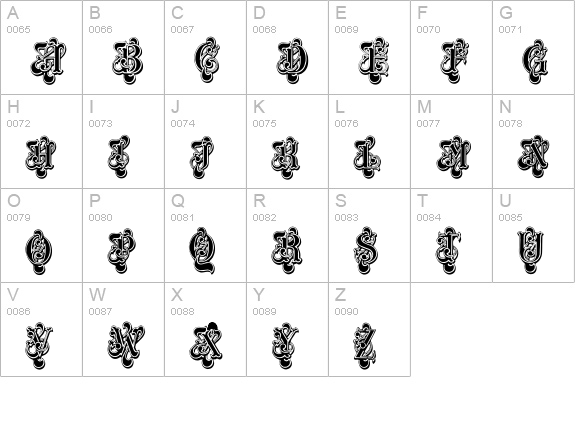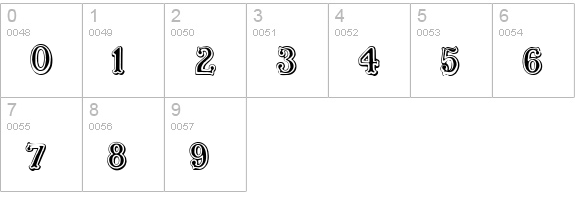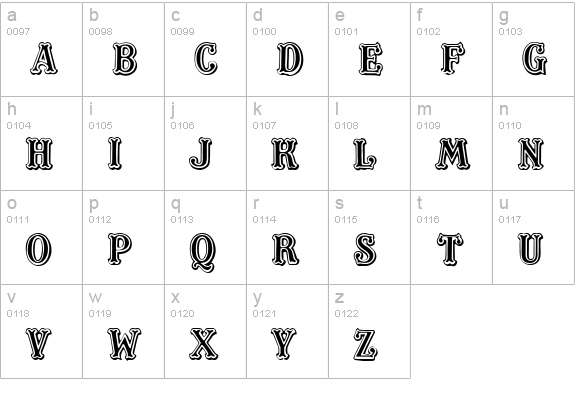
Masquerade Font Details
Introducing the captivating and enchanting Masquerade font, a truly remarkable typeface that effortlessly combines elegance and mystery. This font is the perfect choice for those seeking to add a touch of sophistication and intrigue to their designs. Masquerade font features intricate and ornate letterforms, reminiscent of the intricate masks worn at grand masquerade balls. The delicate curves and graceful lines of each character create a sense of allure and allure, making it an ideal choice for invitations, event posters, or any project that requires a touch of glamour. But what truly sets Masquerade font apart is its versatility. With multiple weights and styles to choose from, you have the freedom to explore and experiment with different looks and moods. Whether you want to evoke the grandeur of a Venetian carnival or create a mysterious atmosphere, Masquerade font has you covered. And the best part? Masquerade font is completely free! That's right, it's freely available to download at FontsMarket.com. Now you can bring a touch of elegance and mystique to your designs without breaking the bank. So go ahead, unleash your creativity and let Masquerade font take center stage in your next project.